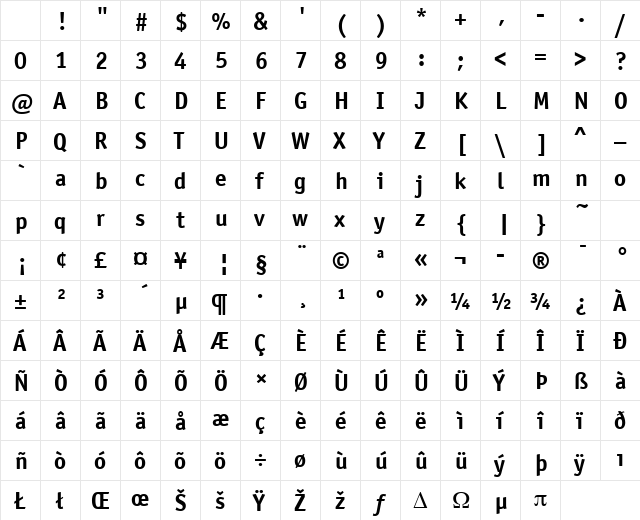
Officina Sans ITC TT Bold
Officina Sans ITC TT Family
Complete Officina Sans ITC TT Bold glyph index. Displaying only characters natively supported by Officina Sans ITC TT Bold font.
Design Context for Officina Sans ITC TT
Officina Sans ITC TT is a composed and adaptable typeface that performs quietly and consistently across a wide range of design contexts. Its bold stroke weight gives it real presence on the page.
Pro Tip: Use Officina Sans ITC TT in both headline and body roles to test its range before committing to a single application.